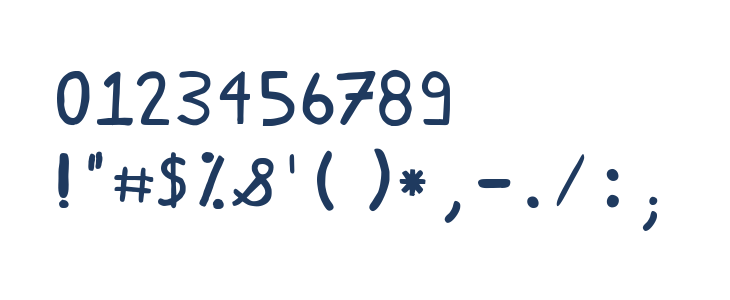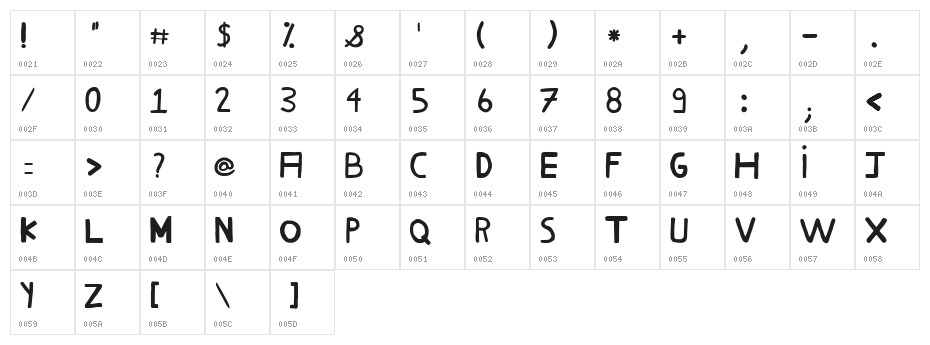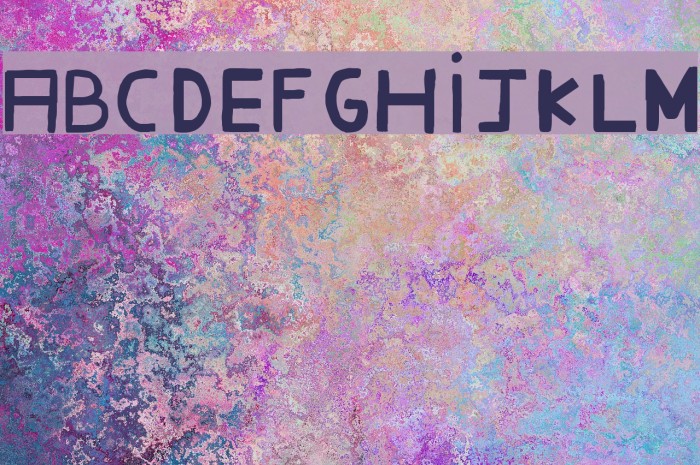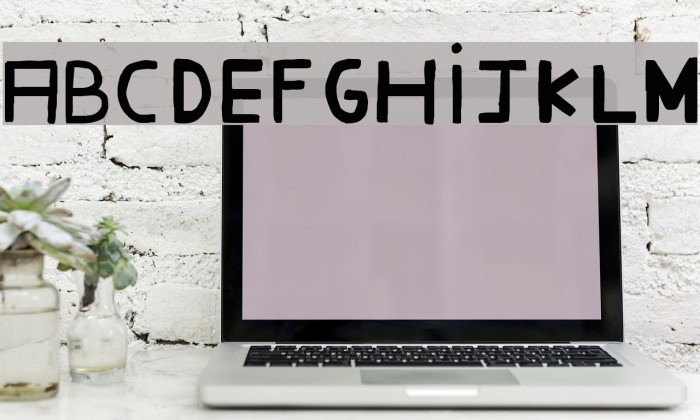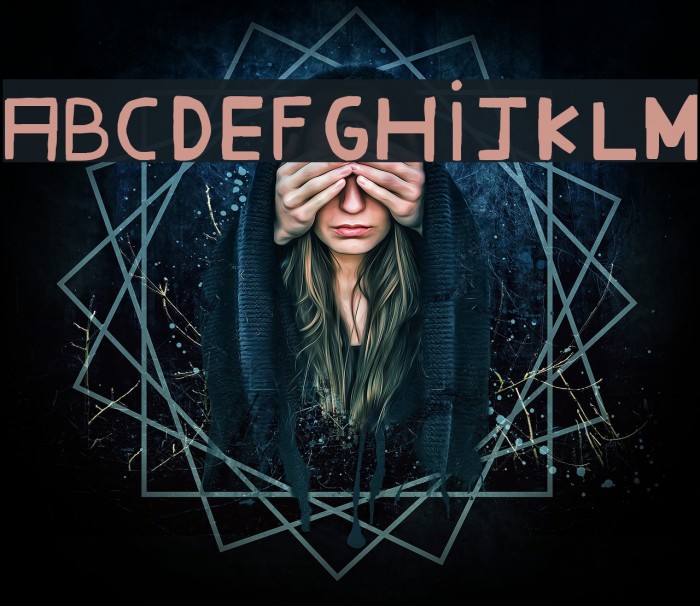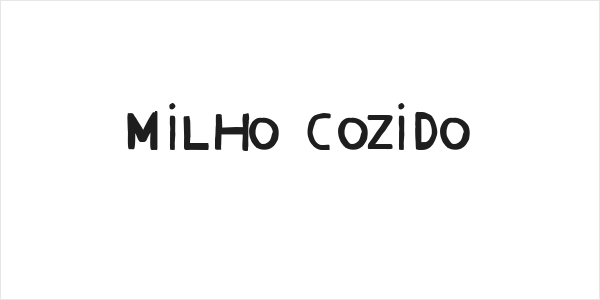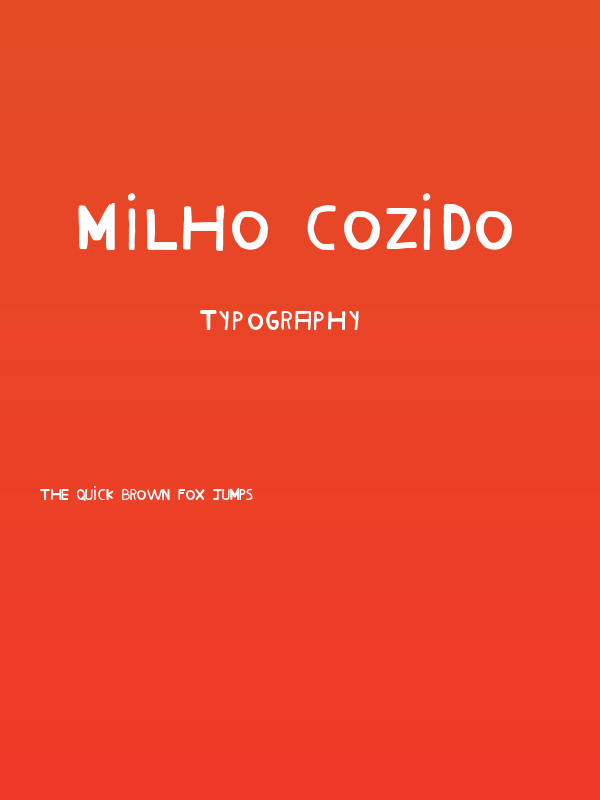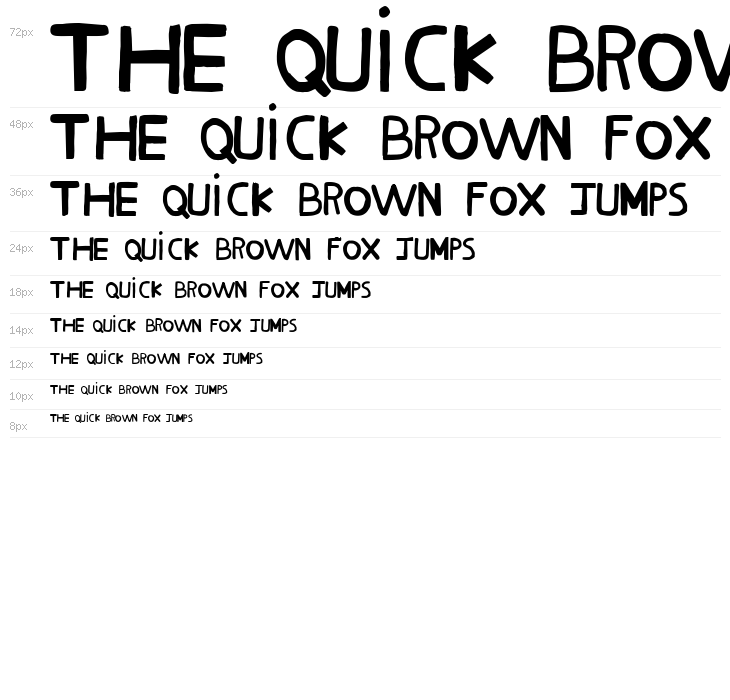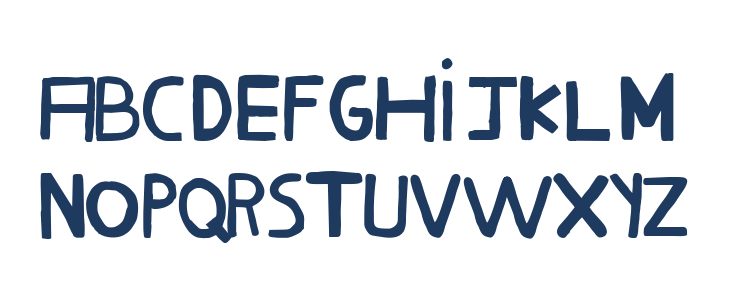
Milho Cozido Font
Milho Cozido Description
This font features a playful and bold handwritten style, characterized by its thick strokes and slightly irregular shapes. The uppercase and lowercase letters maintain a consistent weight, giving it a cohesive appearance. The numbers and special characters follow the same design principles, ensuring uniformity across all glyphs. The font's casual and informal nature makes it suitable for projects that require a personal touch. Its boldness ensures readability, while the quirky design elements add a unique flair. The spacing between characters is relatively tight, contributing to its compact look.
| Use Case | Headlines, Logos, Casual Text |
| Proposed Projects | Ideal for children's books, casual invitations, playful branding, and social media graphics. |